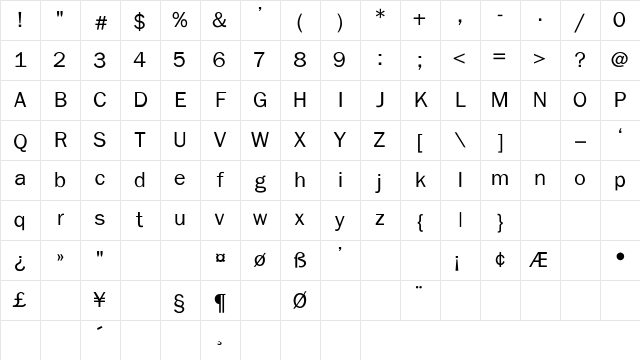
Complete SaintJohn Light Regular glyph index. Displaying only characters natively supported by SaintJohn Light Regular font.
SaintJohn Light is a composed and adaptable typeface that performs quietly and consistently across a wide range of design contexts. Its slender proportions lend an understated elegance to any composition.
Pro Tip: Use SaintJohn Light in both headline and body roles to test its range before committing to a single application.